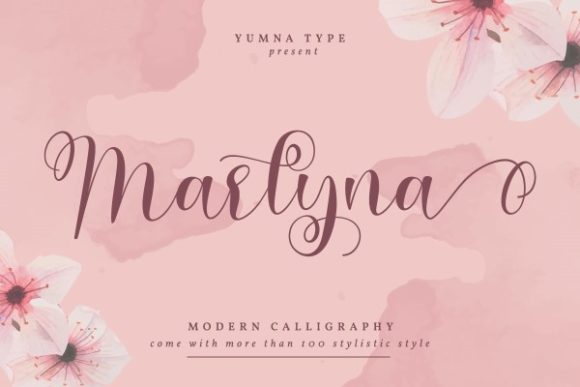
In a world of digital expressions, Marlyna Font emerges as a radiant star, a celestial brushstroke that weaves words into art. Its graceful curves and elegant flow bring a touch of sophistication to your creative endeavors, transforming ordinary text into captivating narratives.
As a handwritten font, Marlyna possesses an inherent charm and warmth that resonates with readers. Its intricate swashes and ligatures add a touch of playfulness and dynamism, making your words dance and twirl across the page. Whether you're a seasoned designer or a novice crafter, Marlyna's versatility will inspire your creativity, turning every project into a masterpiece.
Imagine your Instagram feed adorned with Marlyna's delicate strokes, each post a testament to your refined taste and artistic flair. Or envision your calligraphy projects infused with Marlyna's enchanting allure, each letter a testament to your meticulous craftsmanship. From heartfelt notes to personalized invitations, Marlyna elevates your creations beyond the ordinary, leaving a lasting impression on your recipients.
With Marlyna as your creative companion, you'll discover a font that speaks to your soul, a faithful partner in your artistic journey. Its beauty and functionality blend seamlessly, empowering you to translate your thoughts and emotions into captivating visual expressions. Embrace Marlyna's brilliance, and let your words bloom into works of art.